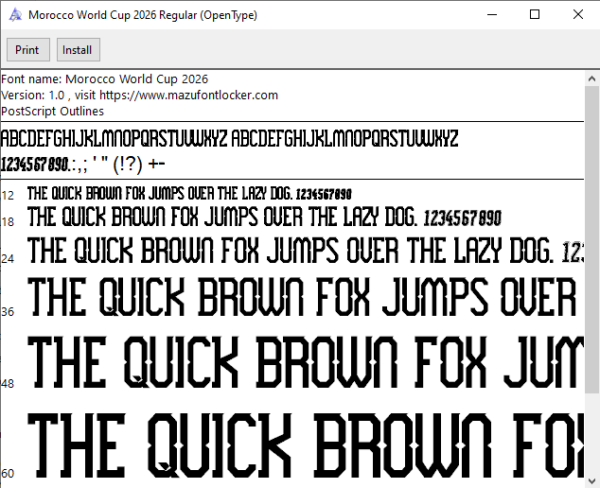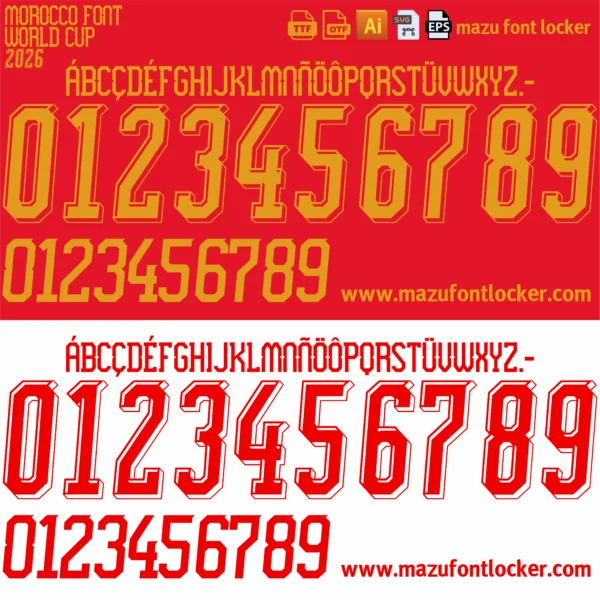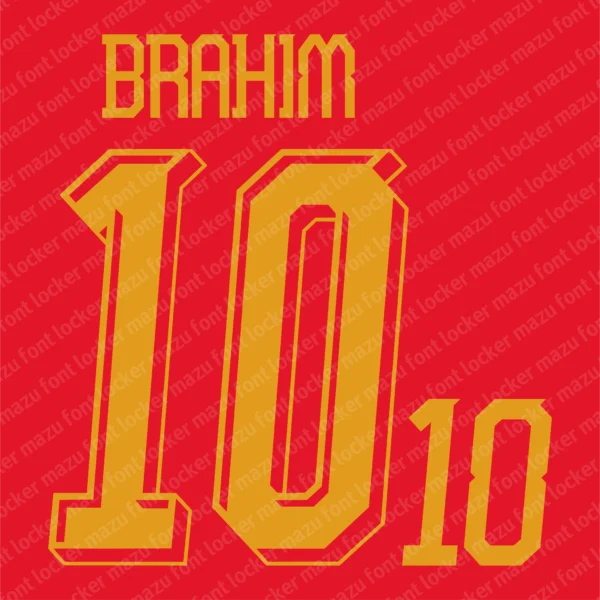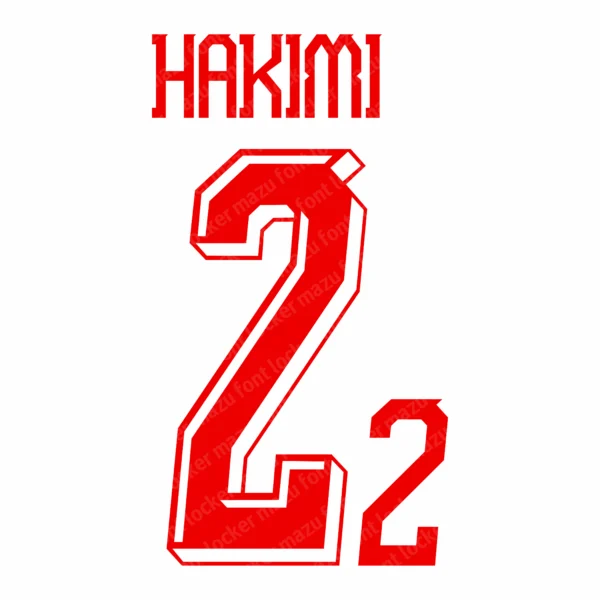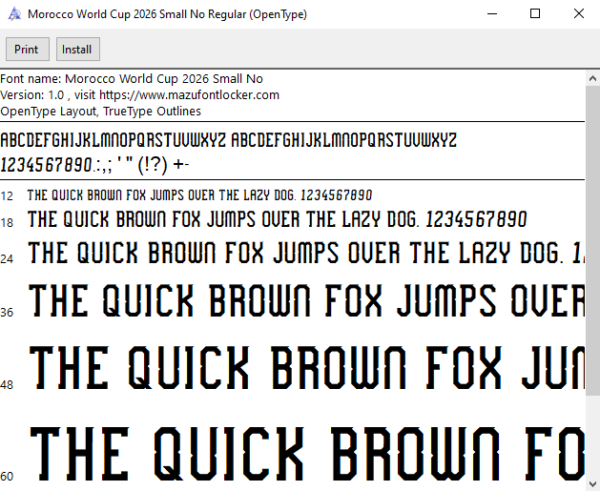
Morocco World Cup 2026 Font Vector – Epic Atlas Lions Majestic Masterpiece
Morocco World Cup 2026 Font Vector – Authentic Atlas Lions Typeface
The Morocco World Cup 2026 Font Vector is a premium typeface that accurately recreates the official match lettering worn by the Morocco national team during the 2026 FIFA World Cup campaign. This high-quality vector font kit captures the bold, powerful, and regal typography that represents the pride, resilience, and fighting spirit of the Atlas Lions.
This font stands out because of its sharp vector precision and strong national identity. Every letter and number is crafted to match the exact style used on the players’ shirts during the 2026 World Cup campaign. Whether you are making realistic kit templates or exciting Atlas Lions content, the Morocco World Cup 2026 Font Vector gives your designs that authentic Moroccan look.
The letterforms in the Morocco World Cup 2026 Font Vector are tall, bold, and highly readable. The strokes have a strong, clean weight with excellent edge definition that looks powerful on the back of jerseys while maintaining classic Moroccan elegance and modern strength.
• Full uppercase A–Z and numbers 0–9 in authentic Morocco World Cup 2026 style
The Morocco World Cup 2026 Font Vector is an independently designed typeface package. It is carefully crafted to replicate the official shirt lettering style of the 2026 World Cup season. This font kit is perfect for creative projects, fan edits, nostalgic jersey designs, and custom football graphics.